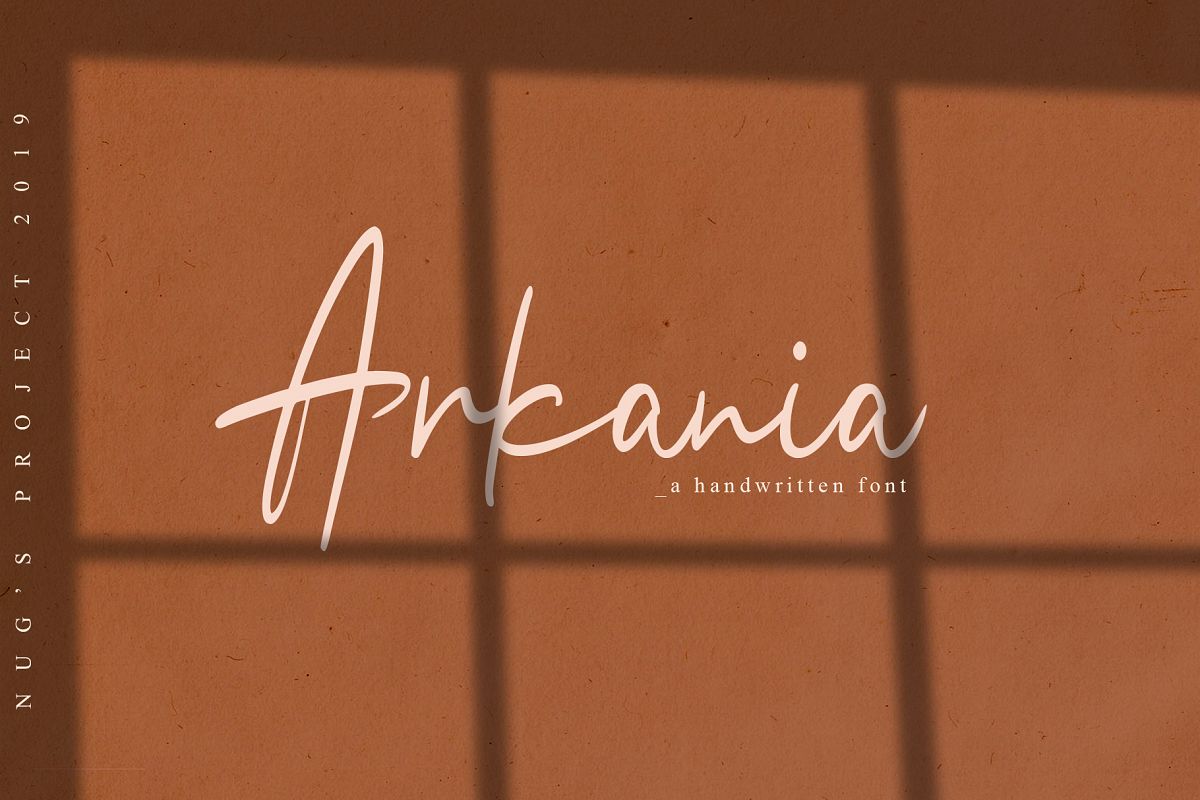
Arkania
Arkania-Regular
Arkania-Slant
The Arkania is a striking
handwritten font. It has natural curves and is perfect for adding a
personal touch to your branding, watermarks, logos, and much more!
• Regular and Slant Version
• Number & Punctuation.
• 280 Ligatures